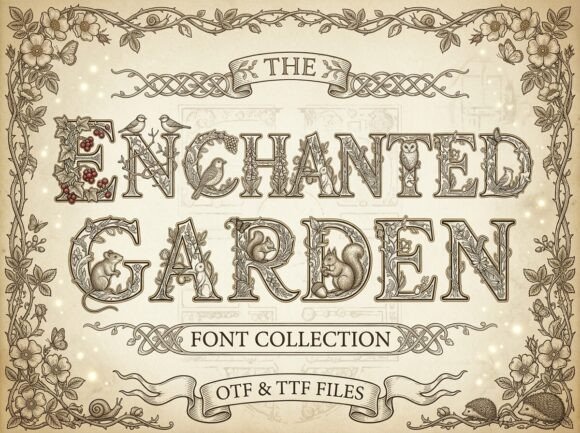
Introducing the Enchanted Garden Monogram Font: A Touch of Nature and Elegance
Are you looking for a font that can add a touch of nature and intricate elegance to your projects? Look no further than the Enchanted Garden Monogram font! This highly detailed, outline-style font features beautiful capital letters intertwined with delicate leaves, vines, and sweet little butterflies, making it perfect for a variety of creative projects.
A Beautiful Line-Art Style
The Enchanted Garden Monogram font boasts a stunning line-art style that is both delicate and sophisticated. The intricate details of the font make it perfect for crafting, creating personalized gifts, and designing your own adult coloring pages. Whether you’re a designer, crafter, or DIY enthusiast, this font is sure to inspire your creativity.
The Enchanted Garden Monogram font is versatile and can be used for a wide range of projects, including:
- Monogrammed tote bags, mugs, and tumblers: Add a personal touch to your home decor or create customized gifts for friends and family.
- Custom T-shirts and apparel: Create unique and stylish clothing with this beautiful font.
- Drop caps for storybooks or wedding invitations: Add a touch of elegance to your literary or wedding projects.
- Cricut and Silhouette crafting projects: This font is perfect for cutting machines, making it easy to create custom signs, cards, and decorations.
- Creating custom coloring book pages: The intricate details of the font make it perfect for adult coloring books or children’s activity sheets.
- Personalized stationery and greeting cards: Add a touch of nature and elegance to your correspondence with this beautiful font.
Why Choose the Enchanted Garden Monogram Font?
There are many reasons why the Enchanted Garden Monogram font stands out from other fonts:
- Unique and eye-catching design: The intricate details and beautiful line-art style make this font truly unique.
- Highly versatile: The font can be used for a wide range of projects, from crafting to commercial design.
- Easily customizable: The font can be resized, colored, and edited to fit your specific needs.
- Perfect for nature-inspired designs: The font’s natural, outdoorsy feel makes it perfect for designs that incorporate elements of nature.
Tips for Using the Enchanted Garden Monogram Font
Here are a few tips for getting the most out of the Enchanted Garden Monogram font:
- Experiment with different colors and textures: The font looks great in a variety of colors and textures, so don’t be afraid to get creative.
- Pair with other natural fonts: Combine the Enchanted Garden Monogram font with other natural, outdoorsy fonts for a unique and cohesive look.
- Use for both digital and print projects: The font is versatile and can be used for both digital and print projects, making it perfect for designers and crafters.
The Enchanted Garden Monogram font is a beautiful and versatile font that can add a touch of nature and elegance to your projects. With its intricate details and stunning line-art style, it’s perfect for a wide range of creative projects, from crafting to commercial design. Whether you’re a designer, crafter, or DIY enthusiast, this font is sure to inspire your creativity and help you create something truly special.